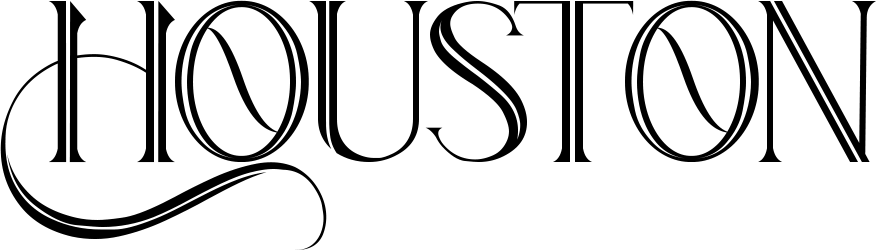
Houston Font
If you are tired of simple fonts, we recommend this Houston font that has luxury style. Due to the swash lines and characters presented in capital letters in two types, you can easily design various wedding cards.
This retro font has no lowercase letters. As a result, you can use other handwritten and luxury fonts to complete your wedding invitation cards, birthday greeting cards, and luxury brand logo design.